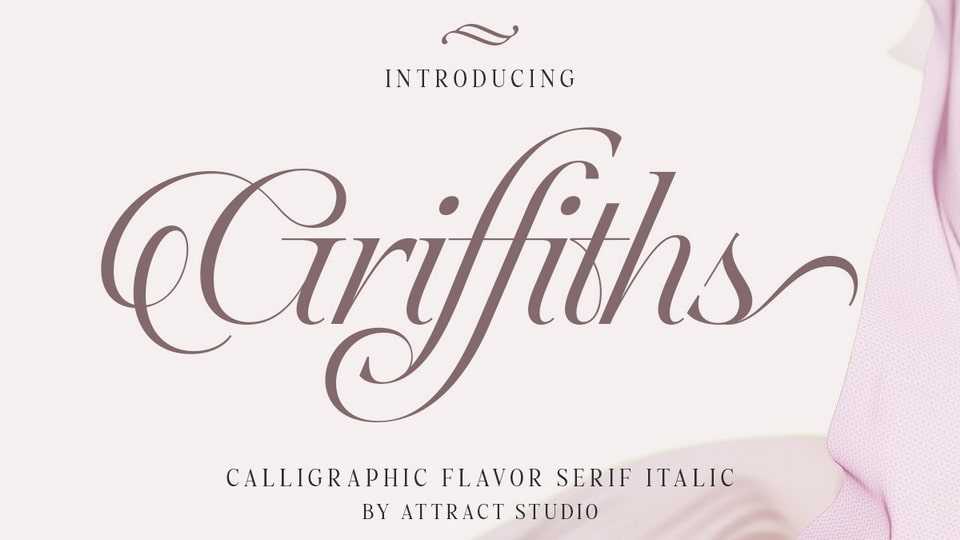
Download Griffiths font, a beautiful italic serif typeface designed to be stylized and combined with a dynamic calligraphic font that is angled at twenty-three degrees. Griffiths is great for branding, logos, labels, or anything that requires a sophisticated look.
Designer: Attract Studio